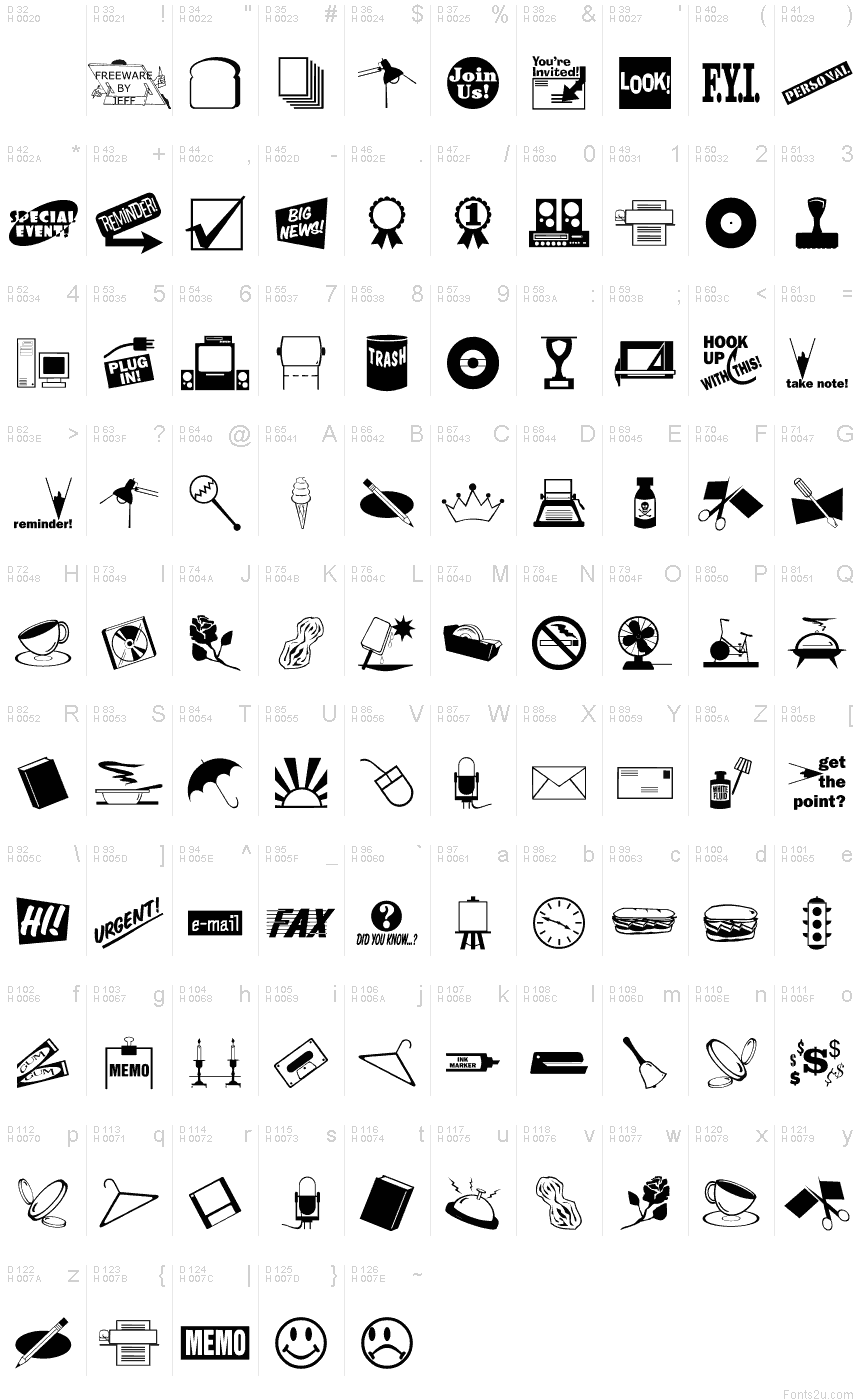
ArtsyParts Dingbats JL
ArtsyParts Dingbats JL font by Jeffrey N. Levine is a free dingbat typeface that turns simple keystrokes into a stash of bold, retro-flavored symbols. Chunky arrows, jagged bursts, geometric badges, and playful icons snap onto the page like vinyl stickers, giving layouts instant energy without needing separate artwork. The glyphs feel inky and hand-cut, with just enough irregularity to keep them lively rather than stiff.
Using ArtsyParts Dingbats JL, you can quickly add accents to posters, flyers, zines, social graphics, scrapbook pages, and sticker-style branding. This free font shines when used big, where the thick black forms punch through color and texture. For a clean, readable combo, pair the dingbats with a simple sans serif for text, letting the symbols act as dividers, bullets, or callout frames that guide the eye.